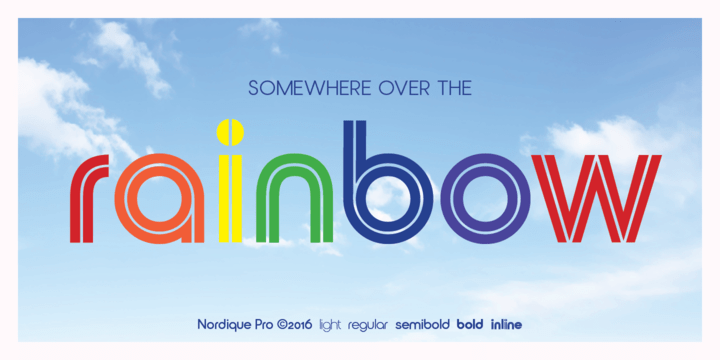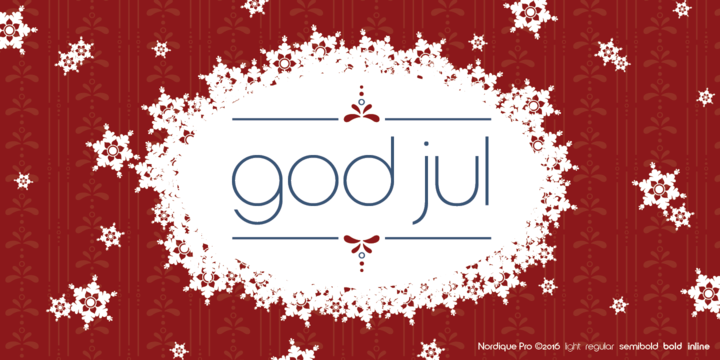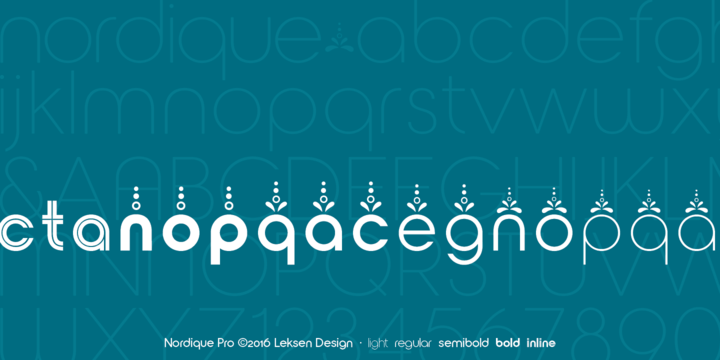
About Nordique Pro
Inspired by her Swedish and Norwegian heritage, Andrea Leksen created this modern geometric sans serif reminiscent of Scandinavian design and typography. With its tall x-height, Nordique will be best showcased at large sizes, in headlines and other display…